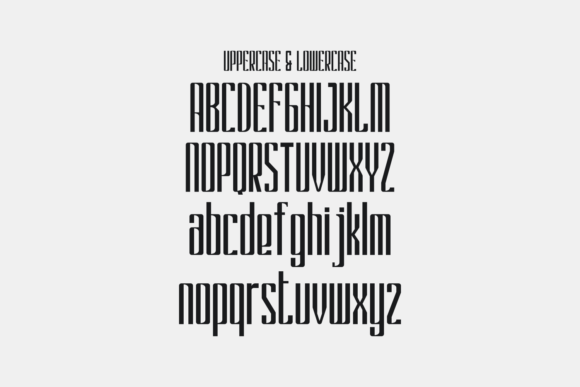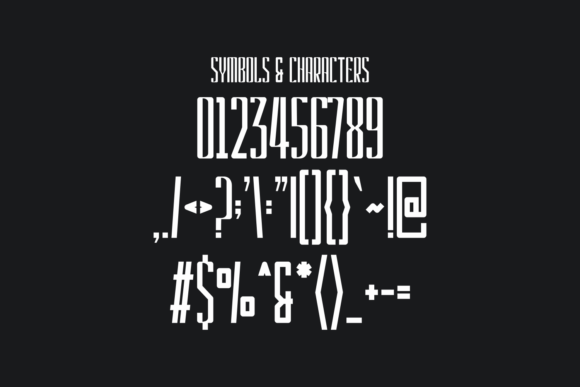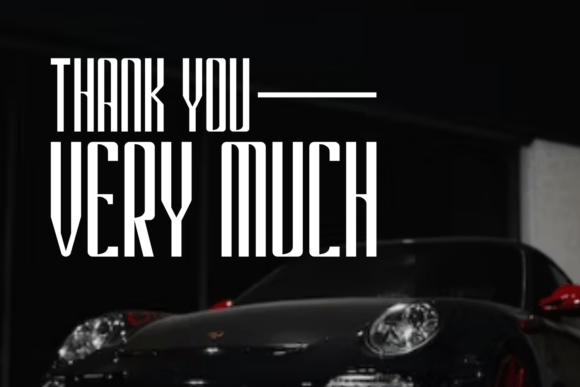
Introduction to Rembag Font
Do you ever find yourself scrolling through a social media feed, and suddenly, a beautifully designed image stops you in your tracks? Maybe it’s a stunning advertisement, a captivating poster, or a cleverly crafted logo. Whatever it is, it’s likely that the creative genius behind it was fueled by a font that brought their vision to life. For designers and creatives, finding the perfect font can be the difference between a good design and a great one.
Enter the Rembag Font, an incredibly unique display font that’s about to revolutionize your creative project. With its masterful design, this font has the potential to take your ideas to new heights. Whether you’re working on a high-profile campaign or a personal passion project, Rembag Font is the perfect design resource to elevate your work.
Key Features of Rembag Font
- High-quality font with transparent background, ideal for creative projects and design resources.
- Comes in a single size, making it easy to use across different design applications.
- Features a high-resolution design, suitable for print and digital use.
- Perfect for designers and artists working on creative projects, offering a unique and stylish touch.
- Includes a range of glyphs and characters, making it a versatile design resource.
Honest Review: Rembag Font
As a designer, I’ve had the opportunity to work with numerous fonts for my creative projects. Recently, I came across the Rembag Font, and I must say, it’s been a pleasant experience.
One thing that stands out about Rembag Font is its high quality and unique design. The font is perfect for designers who want to add a touch of sophistication to their projects. The transparent background is also a plus, making it easy to work with.
Here are some things that work well with Rembag Font:
- ✨ Unique design that sets it apart from other fonts
- ✨ High quality that makes it perfect for print and digital projects
- ⚠️ Limited character set, which may not be suitable for lengthy texts
Overall, I’m impressed with Rembag Font. Its unique design and high quality make it an excellent addition to any designer’s toolkit. While it may have some limitations, it’s still a valuable resource for designers looking for a high-quality font for their creative projects.
The Rembag Font is a versatile design resource that can be used in various creative projects, including logos, brochures, and social media graphics. It’s ideal for designers looking for a high-quality, unique font with a transparent background.
To get the most out of Rembag Font, experiment with different font sizes, colors, and styles. Use it in combination with other design elements to create a visually appealing design. Don’t be afraid to try out new and creative uses for the font to add a unique touch to your project.